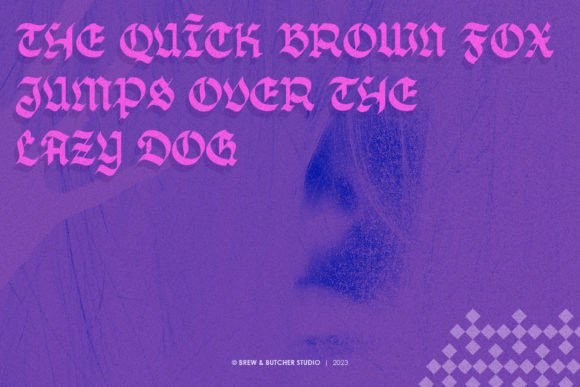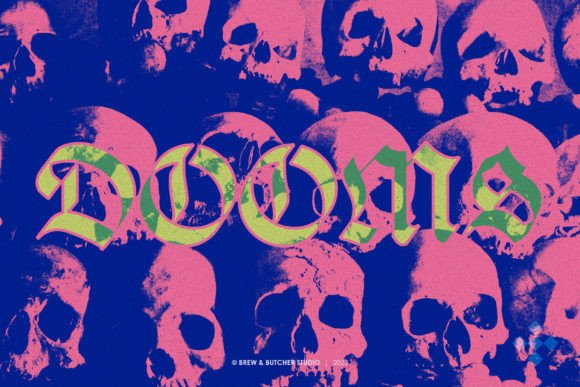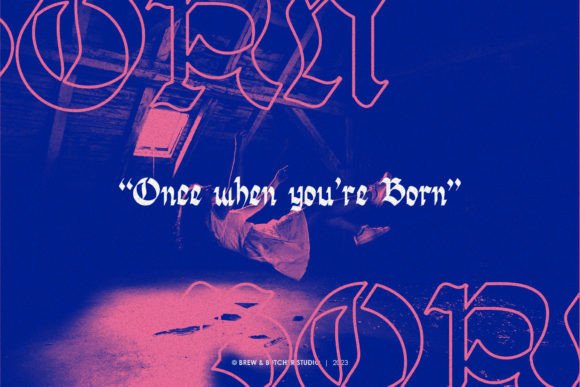
Introduction to Morthao Font
Have you ever stared at a blank page, trying to find the perfect font to bring your creative project to life? I know I have. As a designer, there’s nothing quite like the thrill of discovering a new font that captures the essence of your vision. For me, that moment came when I stumbled upon the Morthao Font – a sleek, black letter calligraphy with a smooth corner style that seemed to say, “Yes, this is the one.”
What sets Morthao Font apart is its unique ability to balance darkness with a hint of playfulness, making it perfect for a wide range of designs, from headers and posters to banners and landing pages. Whether you’re working on a free download or a high-quality design resource, this font is sure to elevate your creative project and leave a lasting impression.
Key Features of Morthao Font
- Unique and creative design suitable for various creative projects
- High-quality design resource with a transparent background
- Perfect for designers, artists, and anyone looking for a distinctive design element
Honest Review: Morthao Font
I recently had the opportunity to work with the Morthao Font for a creative project and I must say, it’s been a game-changer. This design resource has all the characteristics I look for in a font: sleek, modern, and highly versatile.
- ✨ High-quality design: The Morthao Font boasts an incredibly clean and sophisticated design that makes it perfect for any creative project.
- ✨ Transparent background: The transparent background of this font allows for seamless integration with any design element, giving you endless creative possibilities.
However, I do have a few minor issues with the Morthao Font. ⚠️ It’s not suitable for very small text sizes, and it can be a bit tricky to read in certain contexts. Additionally, the font may require some minor adjustments to work well with certain design software.
Overall, I’m thoroughly impressed with the Morthao Font and would highly recommend it to designers looking for a high-quality, versatile font for their next creative project.
Tips for Getting the Most Out of Morthao Font
To get the most out of Morthao Font, use it in conjunction with a high-quality image or design element. You can also experiment with different font sizes and styles to create a unique design resource. Additionally, consider using Morthao Font with a transparent background to add depth and visual interest to your creative project.
Morthao Font is a versatile design resource that can be used in a variety of creative projects, including branding, marketing materials, and digital art. Its high-quality design makes it an ideal choice for designers looking to create a professional-looking design resource.